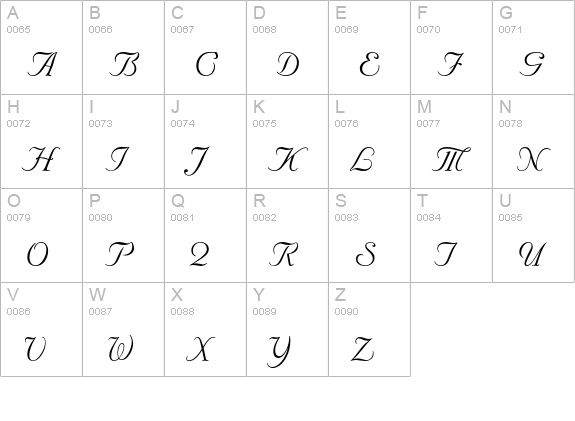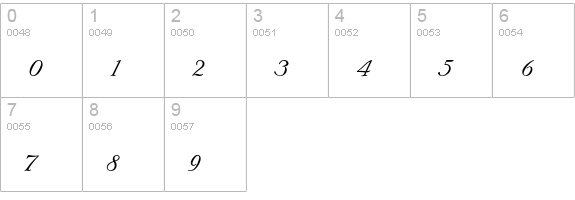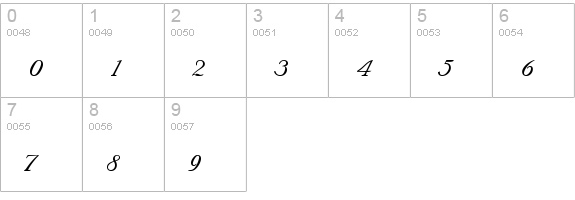
Nuptial Font Details
Nuptial font is a stunning and elegant typeface that exudes romance and sophistication. With its delicate curves and graceful letterforms, Nuptial is perfect for adding a touch of luxury to wedding invitations, love letters, and other special occasions. This timeless font captures the essence of love and celebration, making it the ideal choice for any project that calls for a touch of elegance. Best of all, Nuptial font is available for free download at FontsMarket.com. Whether you're a professional designer looking for the perfect typeface for a client's wedding invitations or a DIY enthusiast creating your own love notes, Nuptial font is sure to impress with its beauty and versatility. Download it today and add a touch of romance to your projects with this exquisite and freely available font.